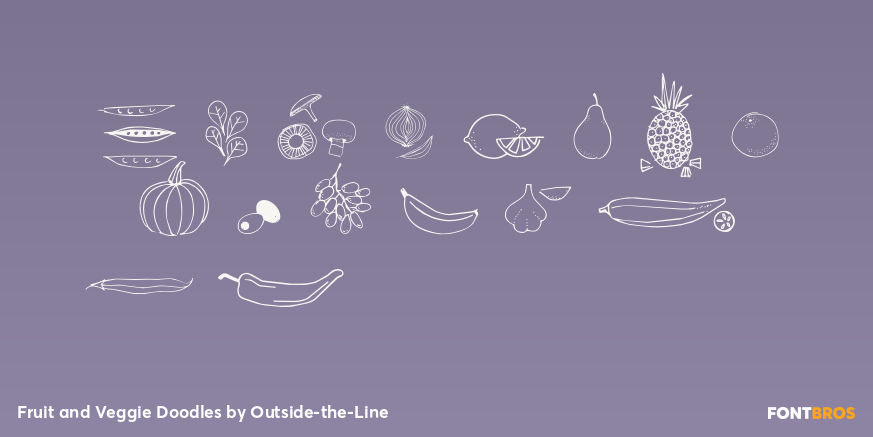
Fruit and Veggie Doodles
Font Family by Outside-the-Line
Fruit and Veggie Doodles is a 33-picture clipart font. Use them as dingbats or enlarge and use as clipart. Lots to choose from: potatoes, tomatoes, avocado, eggplant and more. A veritable produce section!
Fruit and Veggie Doodles is the companion font to Food Doodles Too. Also works nicely with Coffee & Tea Doodles. And if you need some fancy cakes check out Party Doodles. All in the same line drawing style to mix and match.